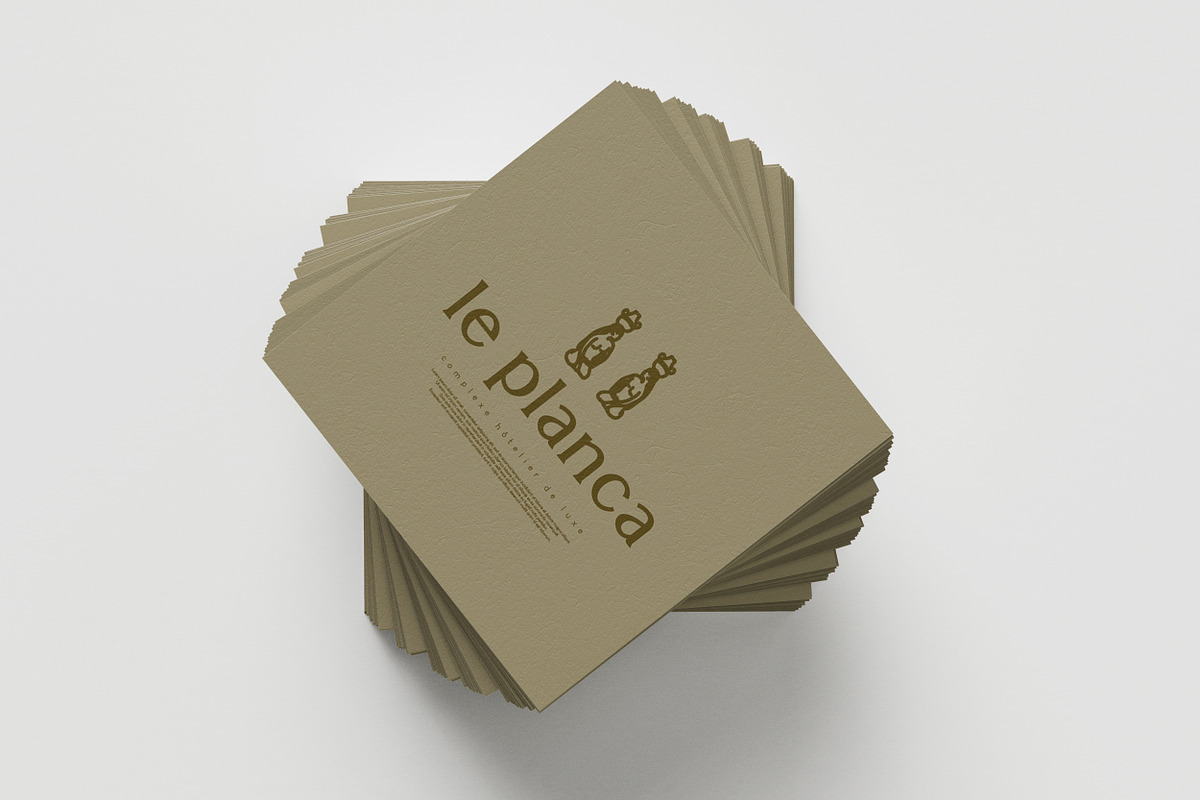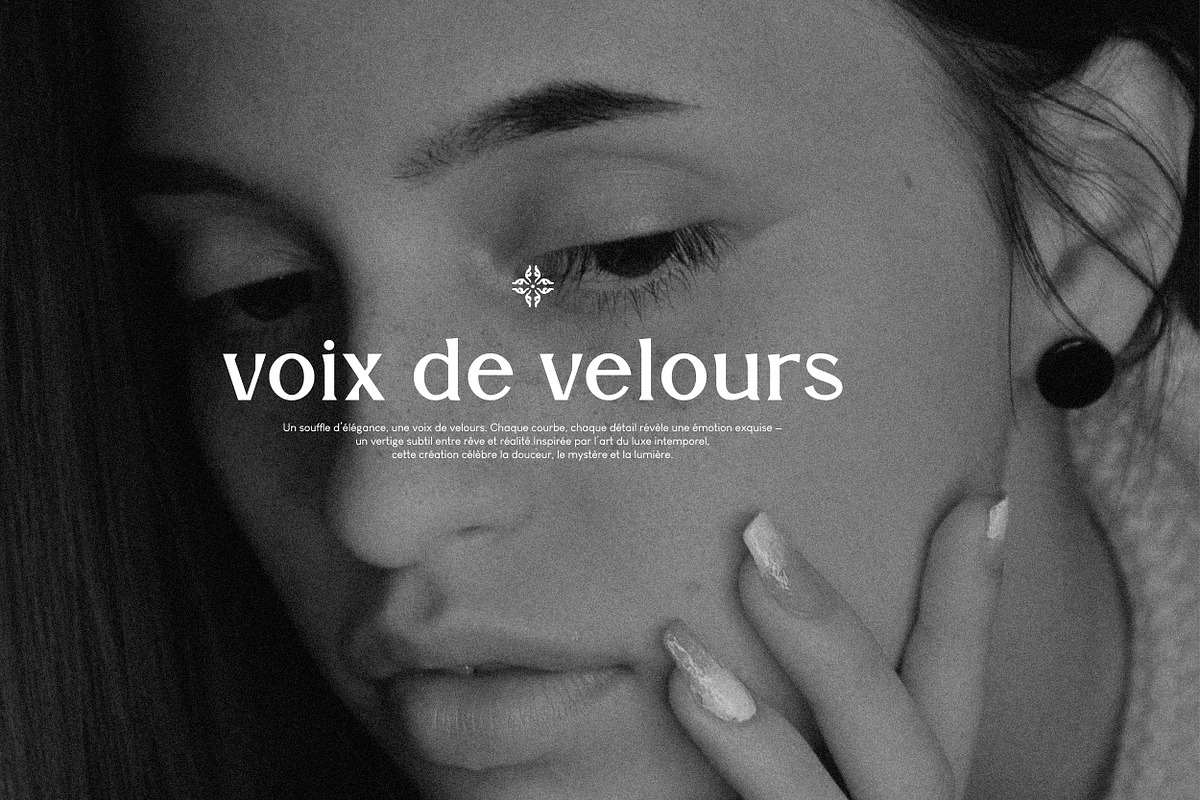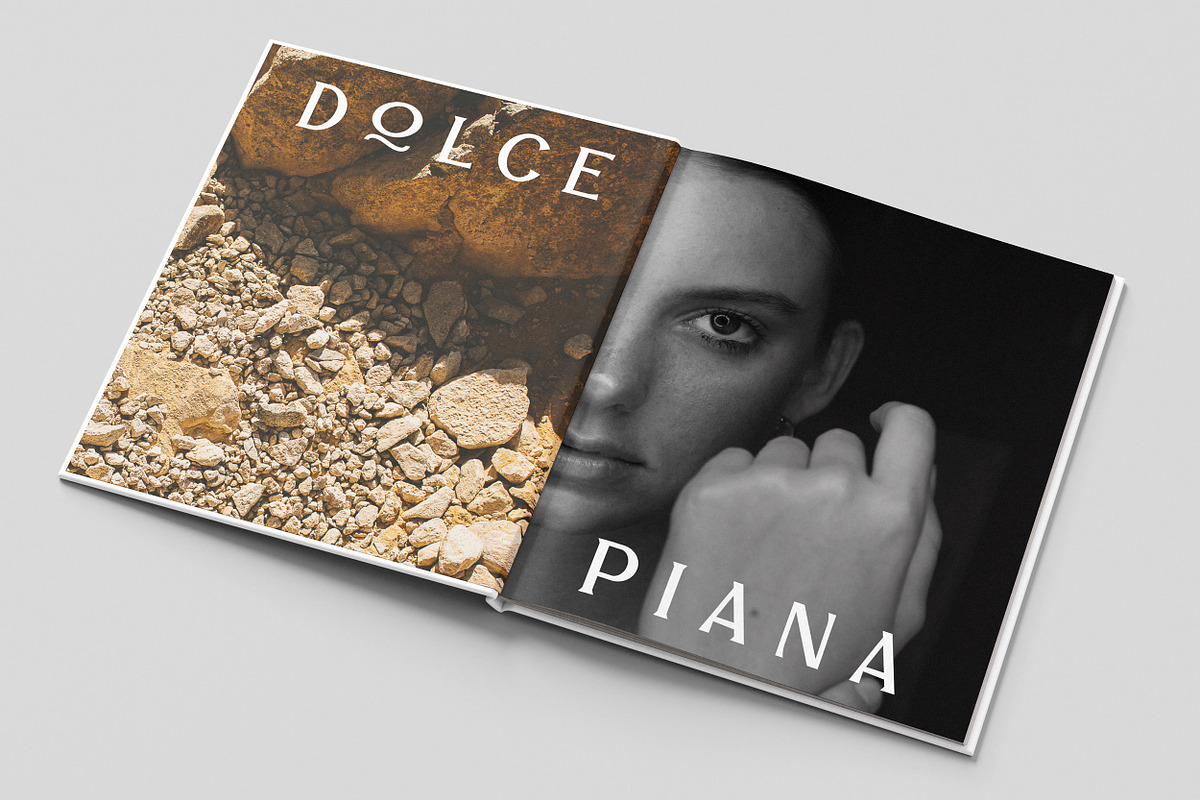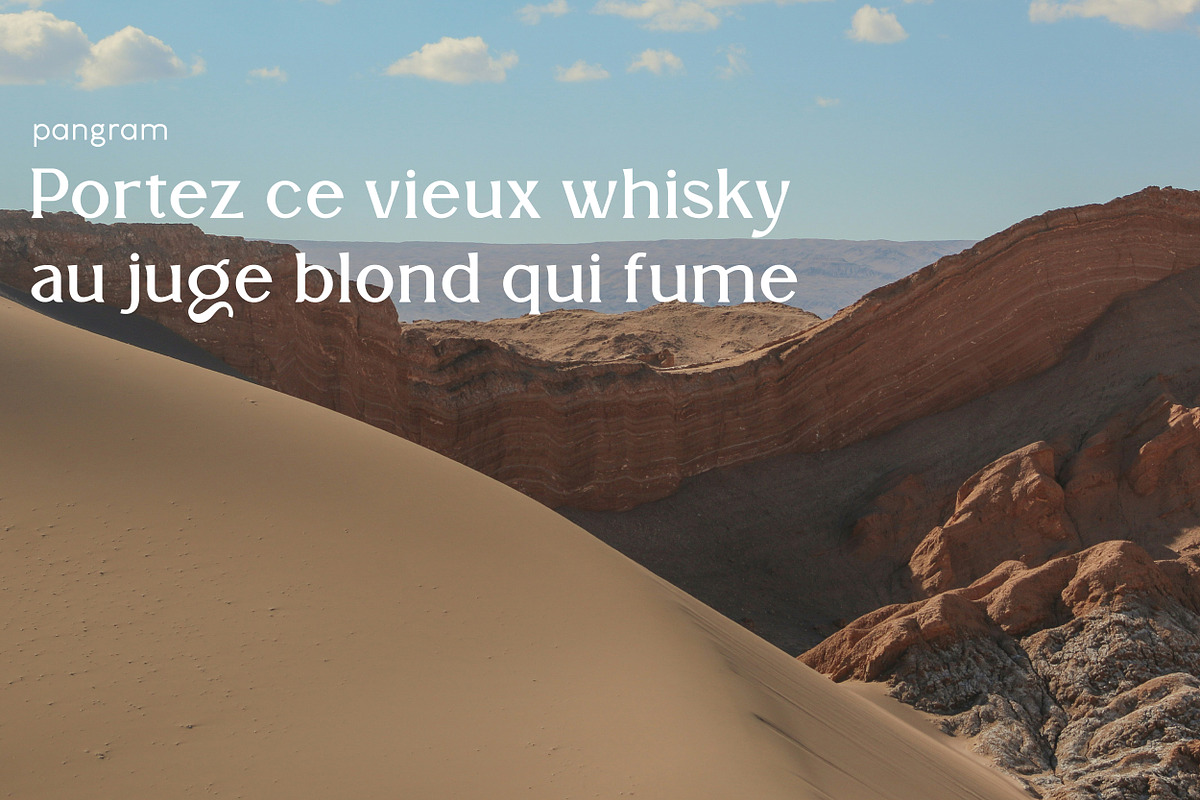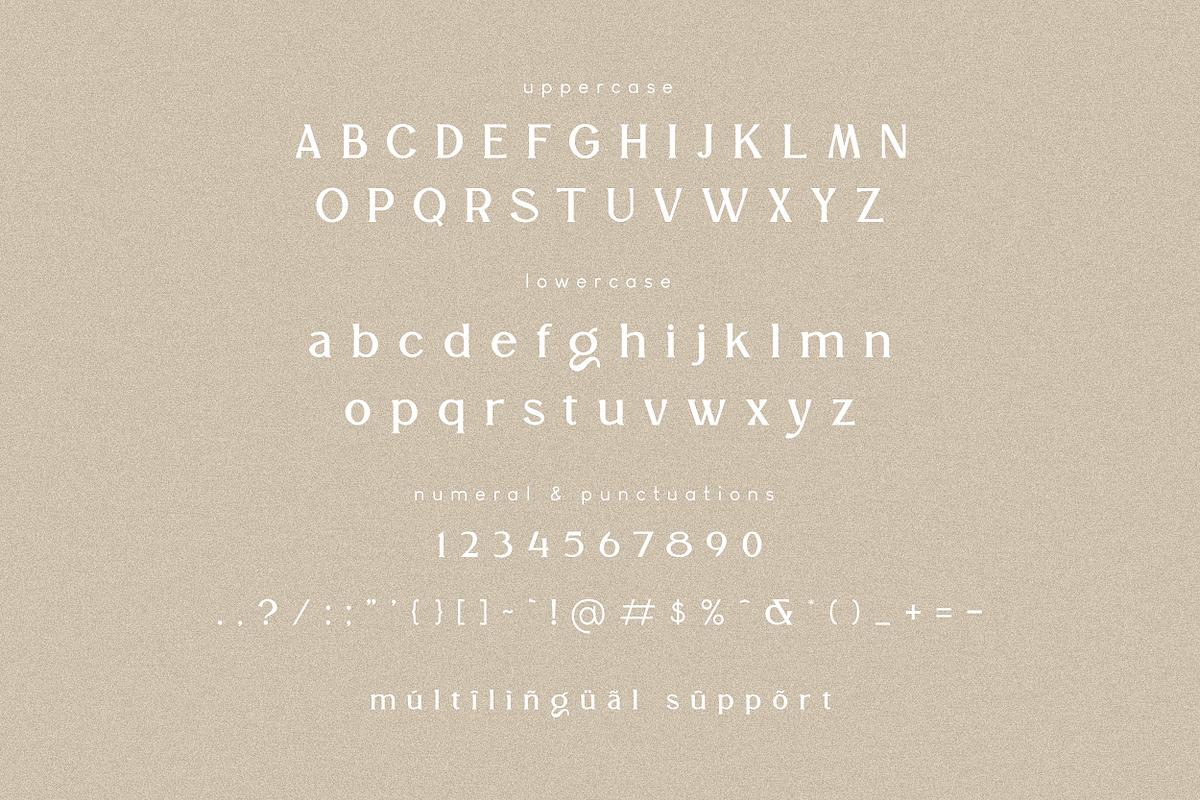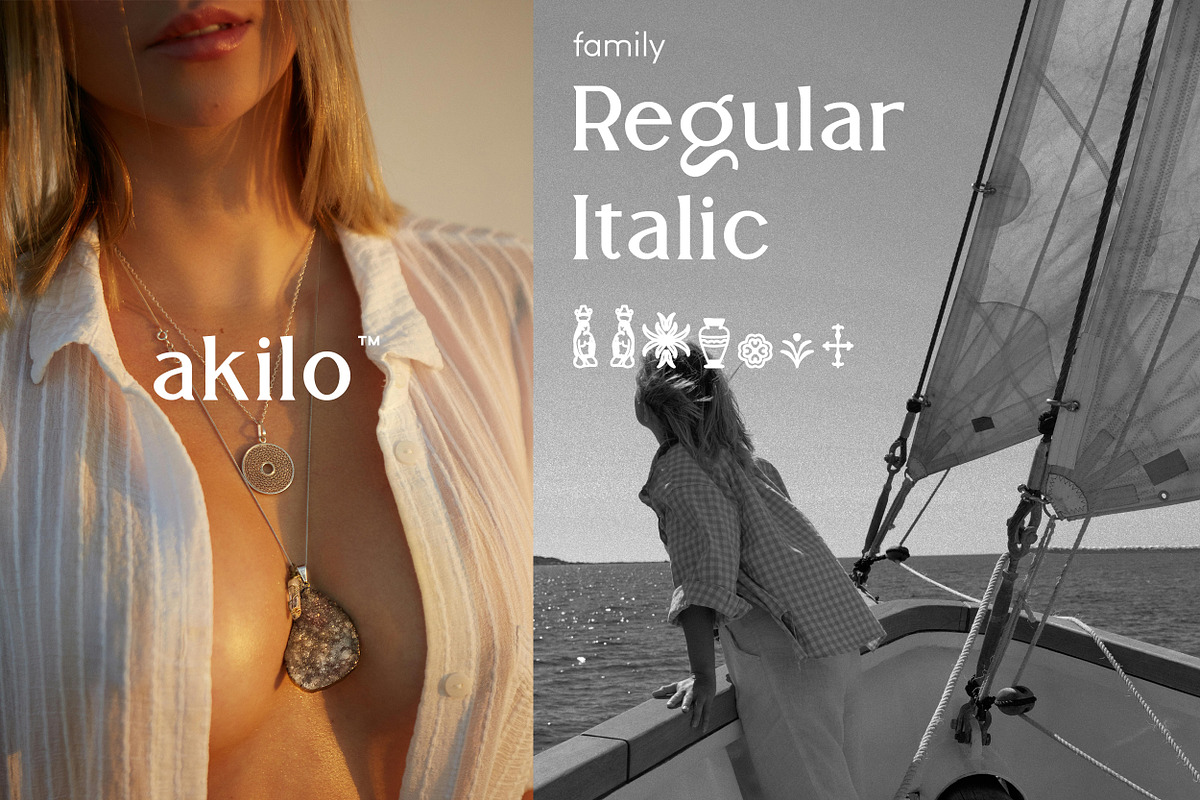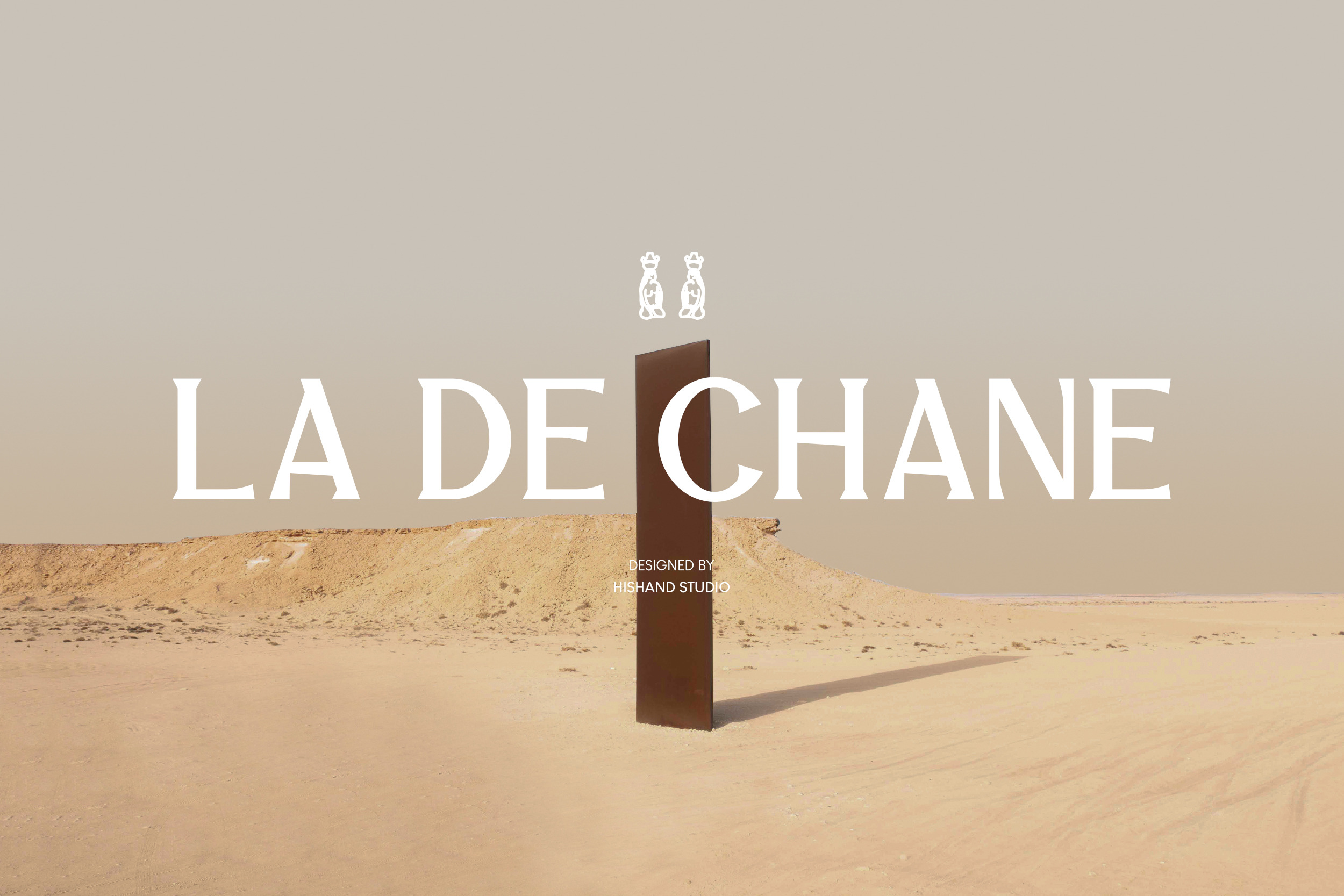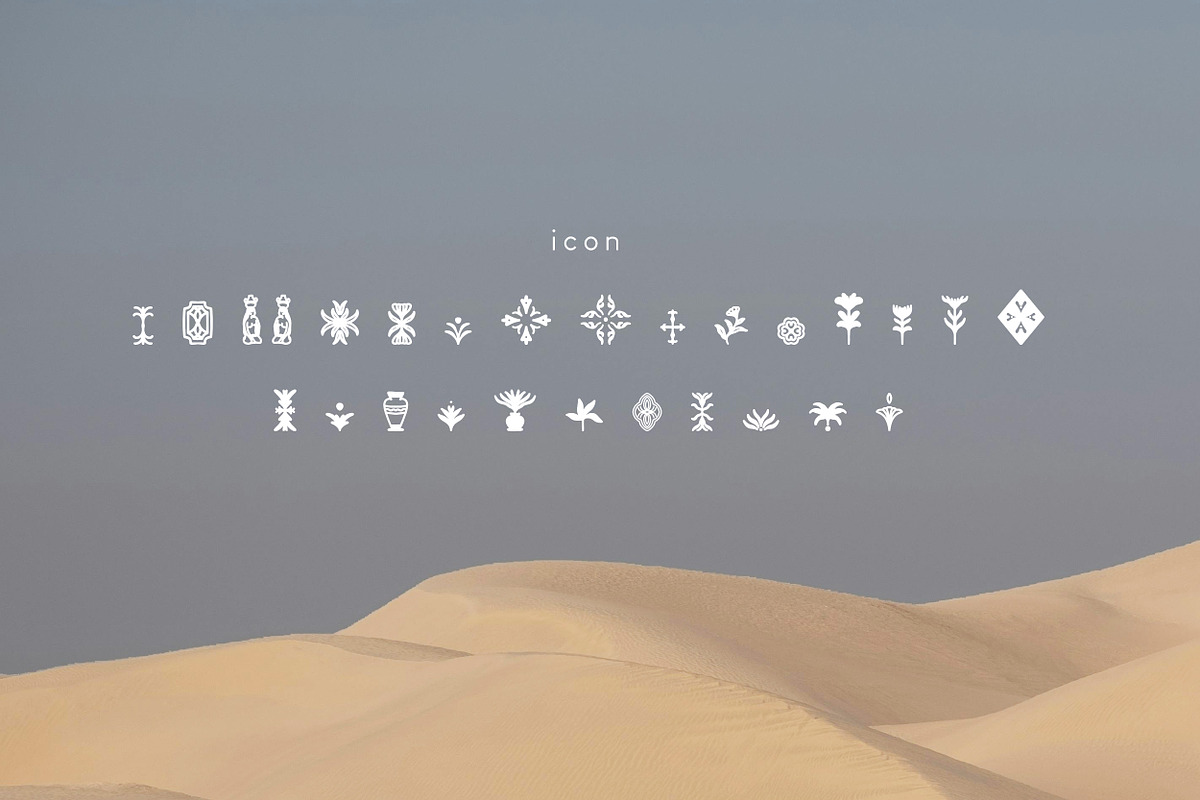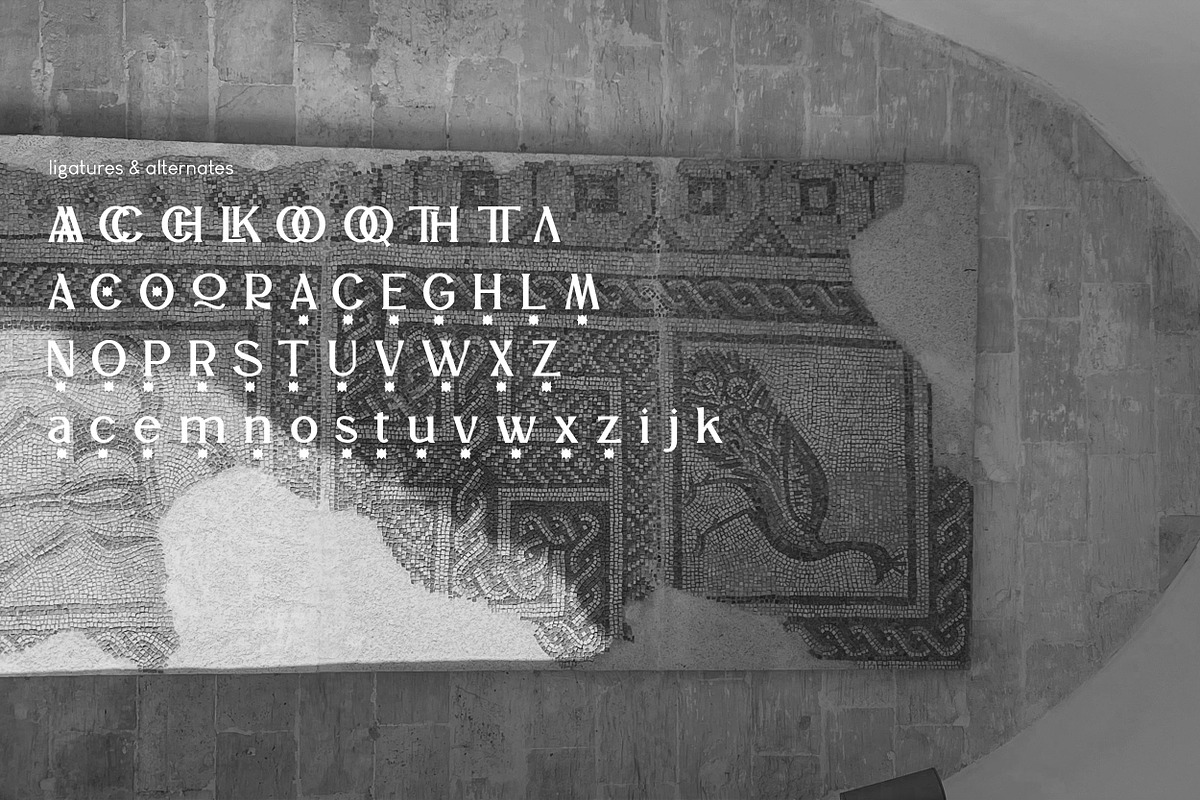
LA DE CHANE Display Font
LA DE CHANE is a sophisticated serif typeface that blends timeless elegance with modern design. With high-contrast strokes, refined curves, and sharp serifs, it brings a sense of luxury and confidence to any project.
Ideal for fashion labels, upscale branding, editorials, and premium packaging, LA DE CHANE commands attention without being loud. Every letterform is crafted to deliver style and clarity, making it perfect for both headlines and elegant logotypes.
Complete with
- alternates
- regular
- Italic
- icon
- kerning
- multilingual support